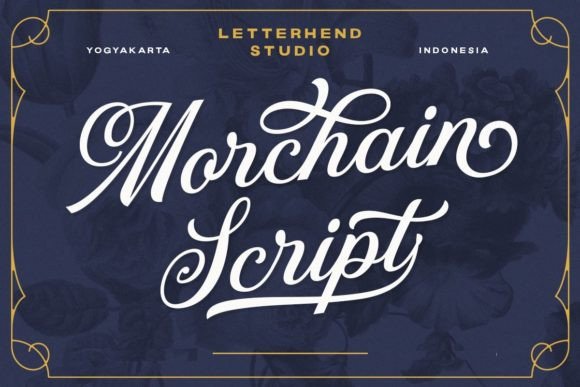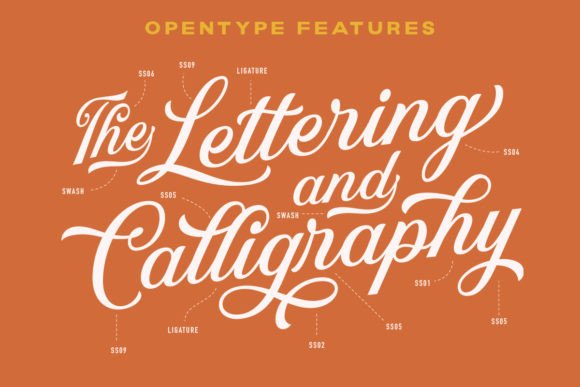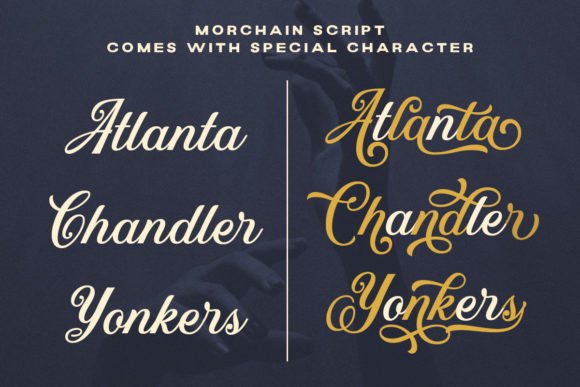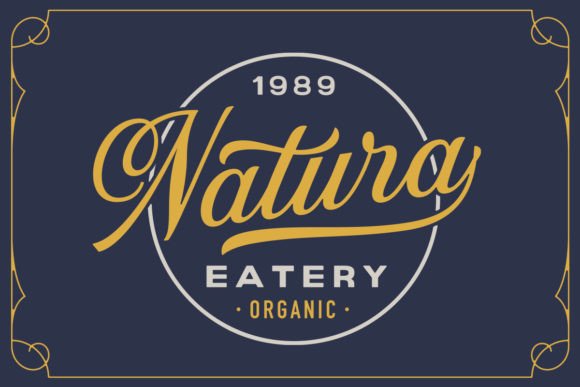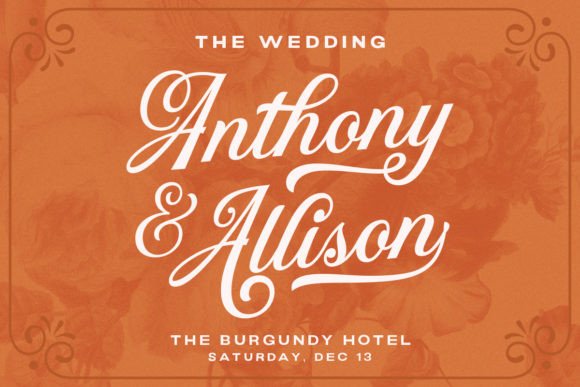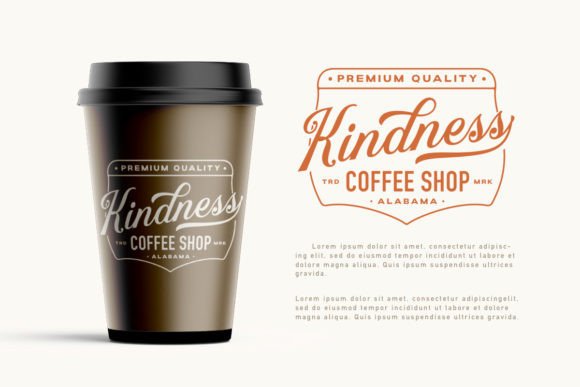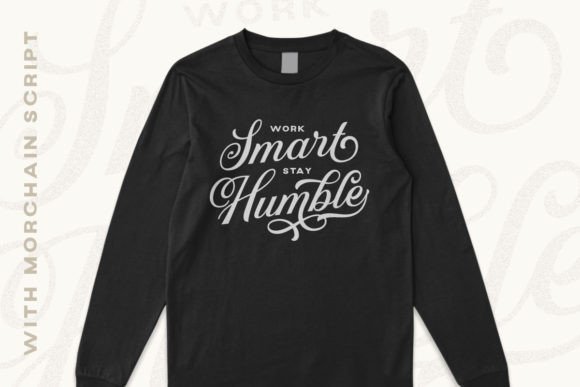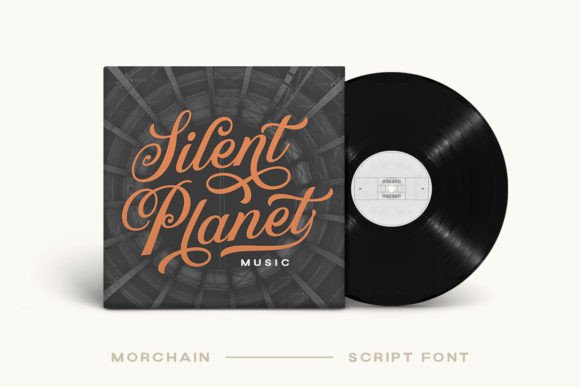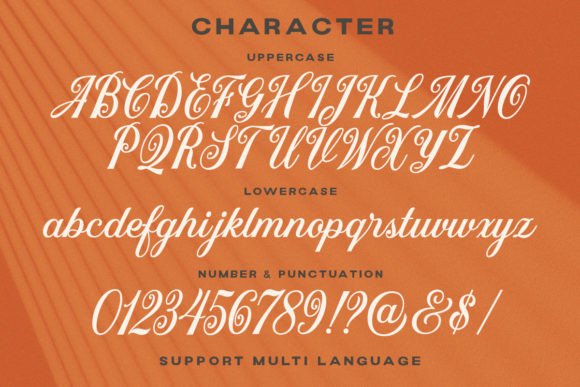
Morchain Script
About Morchain Script
Morchain Script is a gorgeous and elegant handwritten script font, crafted to give your headlines and logotype projects a stylish touch. This font reads as strong, confident, and dynamic and can add tons of nostalgic character to your designs.